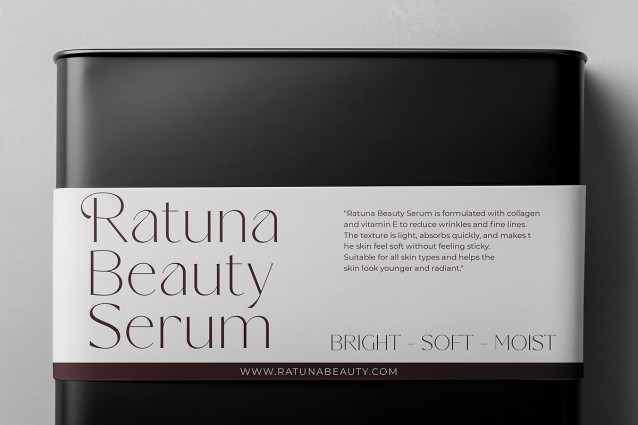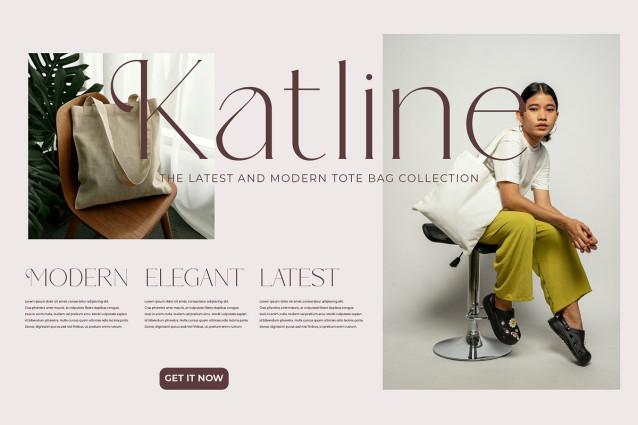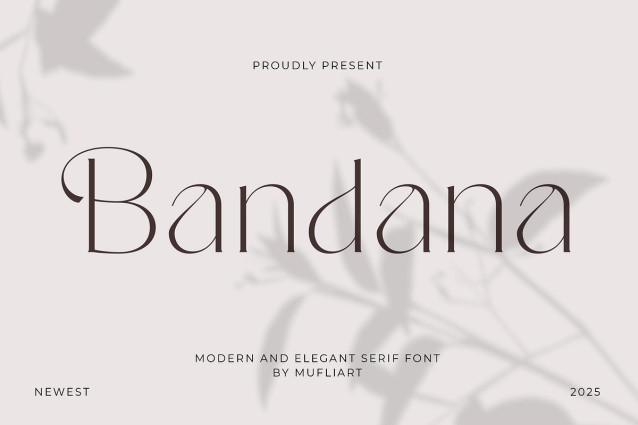
Bandana Typeface
Bandana Typeface, a Serif font, is elegant, beautiful and modern. With a modern and minimalist look, Bandana brings a classy, ​​classy and clean style to your projects such as websites, modern logos, brand identities, social media quotes, wedding stationery, magazines and more!
Bandana features unique and classy uppercase letters from A to Z, and comes with unique alternate fonts, making Bandana a beautiful, customizable font for many different projects and jobs you want.
Bandana is perfect for: logos, branding, wedding invitations, business cards, greeting cards, posters, magazines, social media, print schedules and websites.